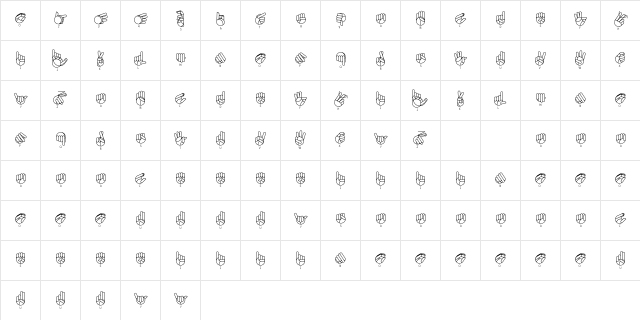
Libras-nilo Regular
| Foundry | Danilo Miguel |
| Designer | Danilo Miguel |
Libras-nilo is a composed and adaptable typeface that performs quietly and consistently across a wide range of design contexts.